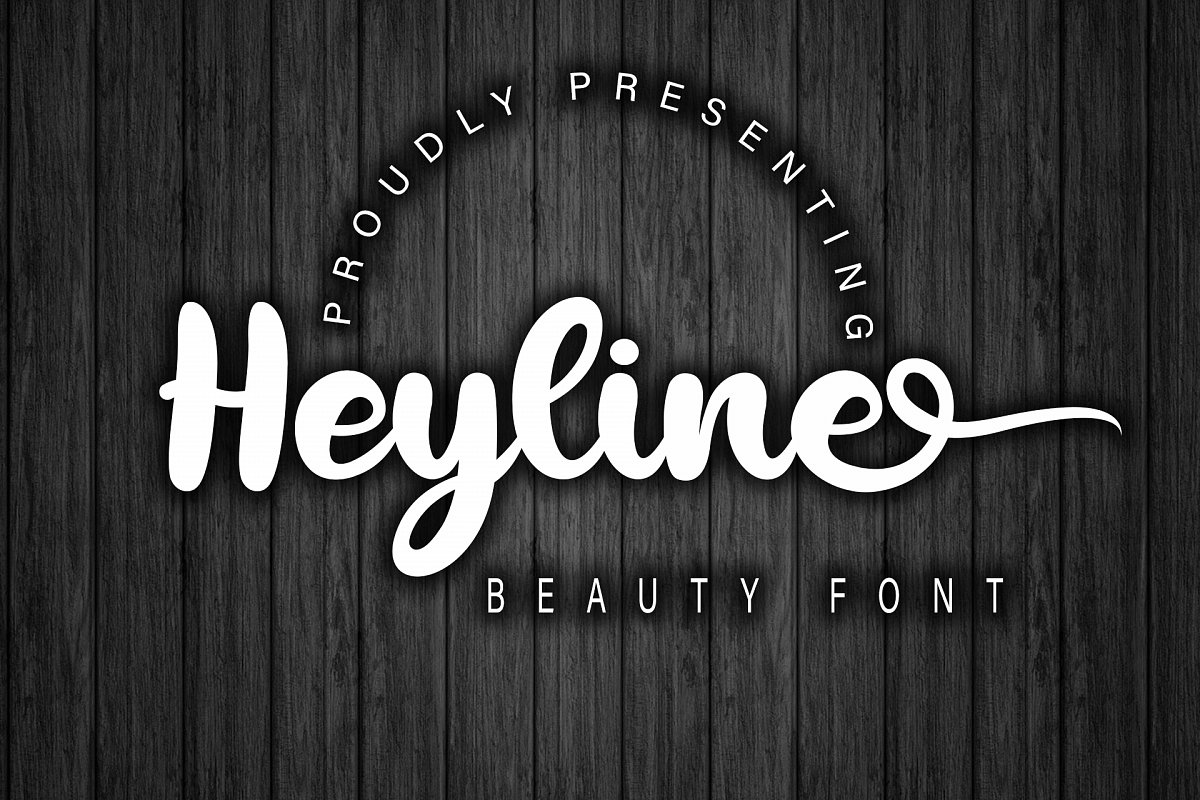
Heyline
heyline is a beautiful and beautiful script type script designed with a neat concept, there are also alternative opentype features, even businesses, companies, clothing, and much more